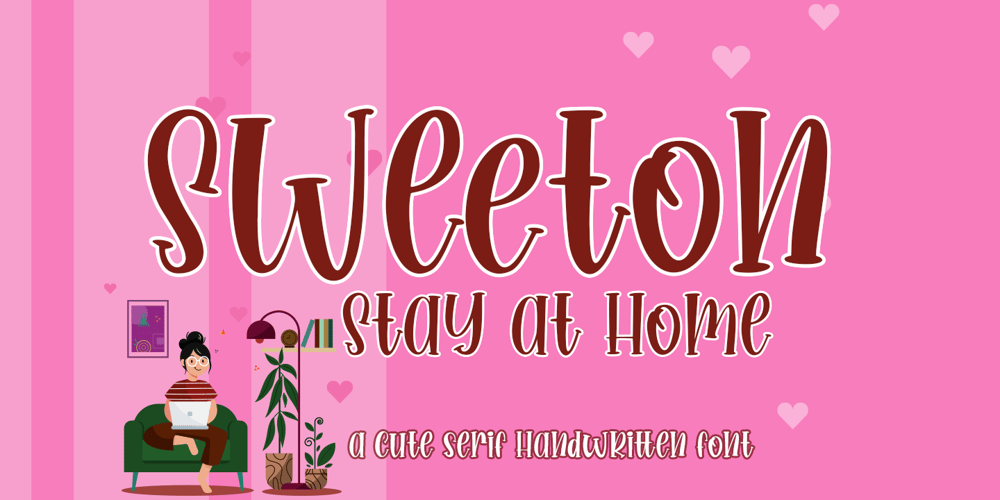
Sweeton Font Family was designed by Sarwo Edhi Prayitno and published by Haksen. Sweeton contains 1 styles and family package options. Sweeton is a display cartoon font with fill love with casual quirky style. It is perfect for any branding, birthday/valentine invitation, promotion, product packaging, and other needs.You will get full set of lowercase and uppercase letters, numerals and punctuation, multilingual symbols, ligatures and extra swashes that giving realistic hand-lettered styleIn order to use the beautiful swashes, you need a program that supports OpenType features such as Adobe Illustrator, Adobe Photoshop, Adobe Indesign and Corel Draw.Or please check the end of the preview to know how to get the swashes.Thanks and have a wonderful day,Haksen